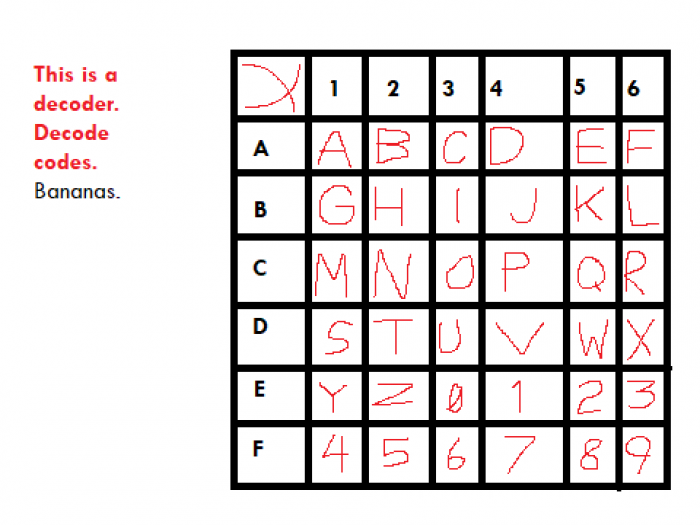
• Made the font in around 7-8 minutes. Based on the decoder I made a few hours ago.
When making a word, make sure it is all uppercase, except for the ending letter, which would be lowercase (e.g. "bananas" would become "BANANAs").
Alternate number set in a similar fashion in the Halfwidth and Fullwidth Forms block.
Here's said decoder. Note that it's low quality because I made it in MS Paint.
for undashed e3-f6, 0123456789
A2-A1-C2-A1-C2-A1-D1
Wondering what this says?
@HNA (Ver 1) BANANAS
wrong, it's BANANAs